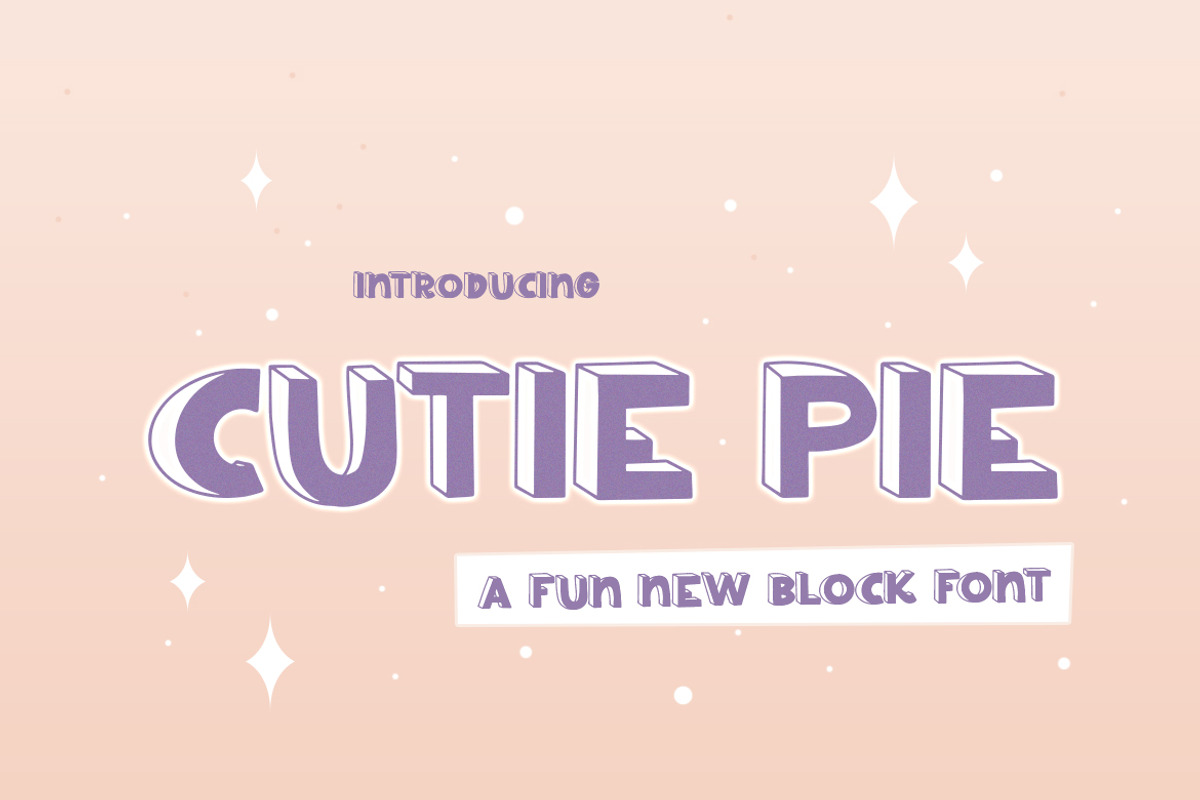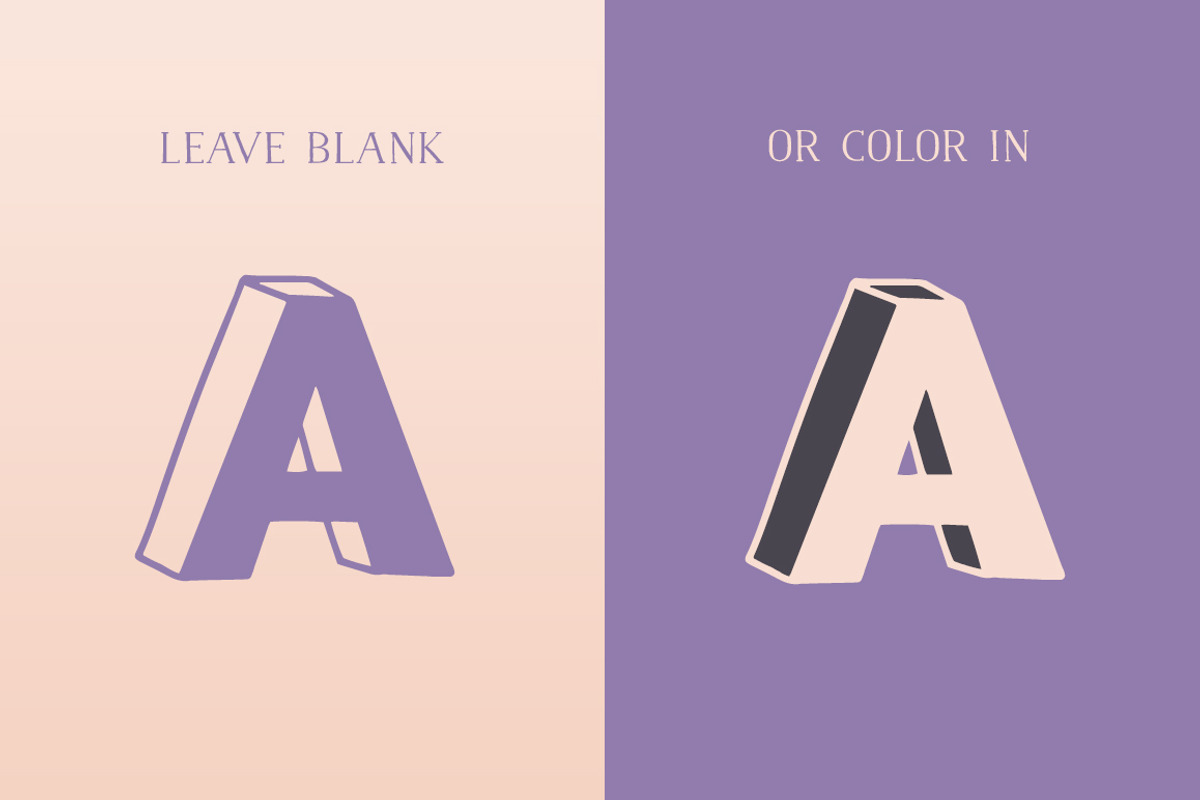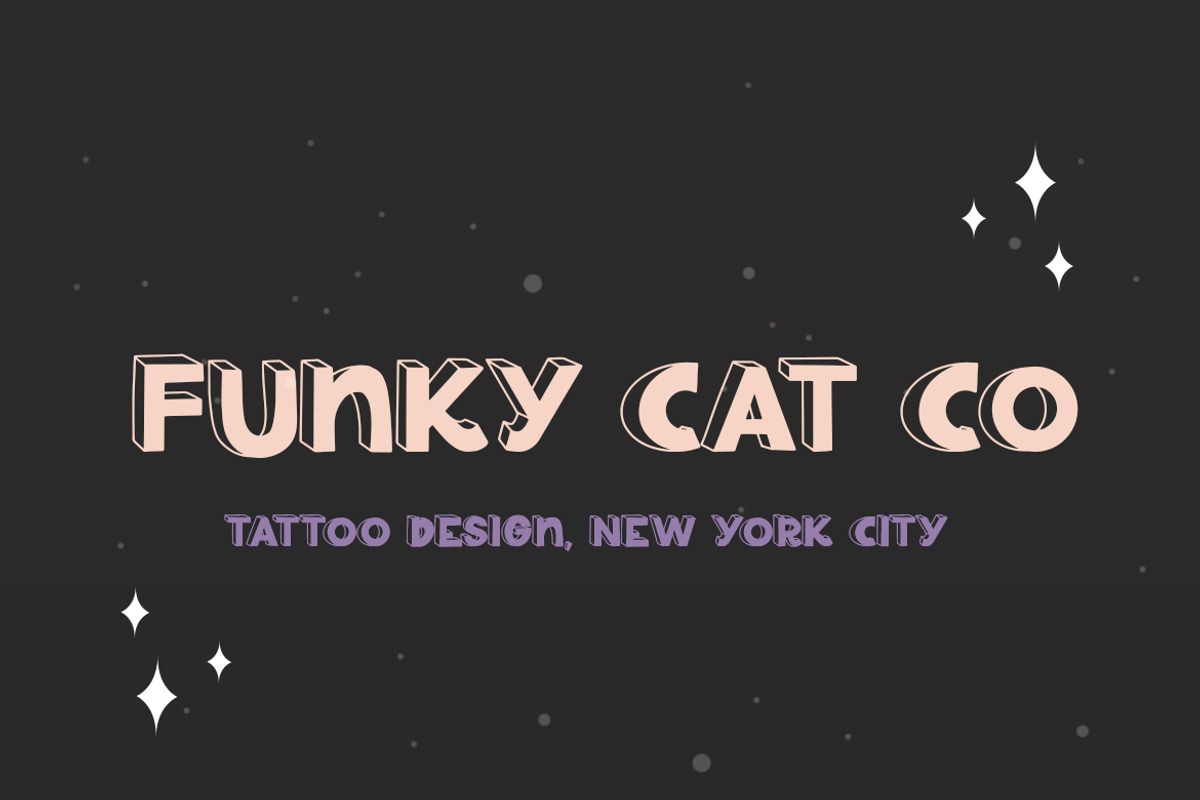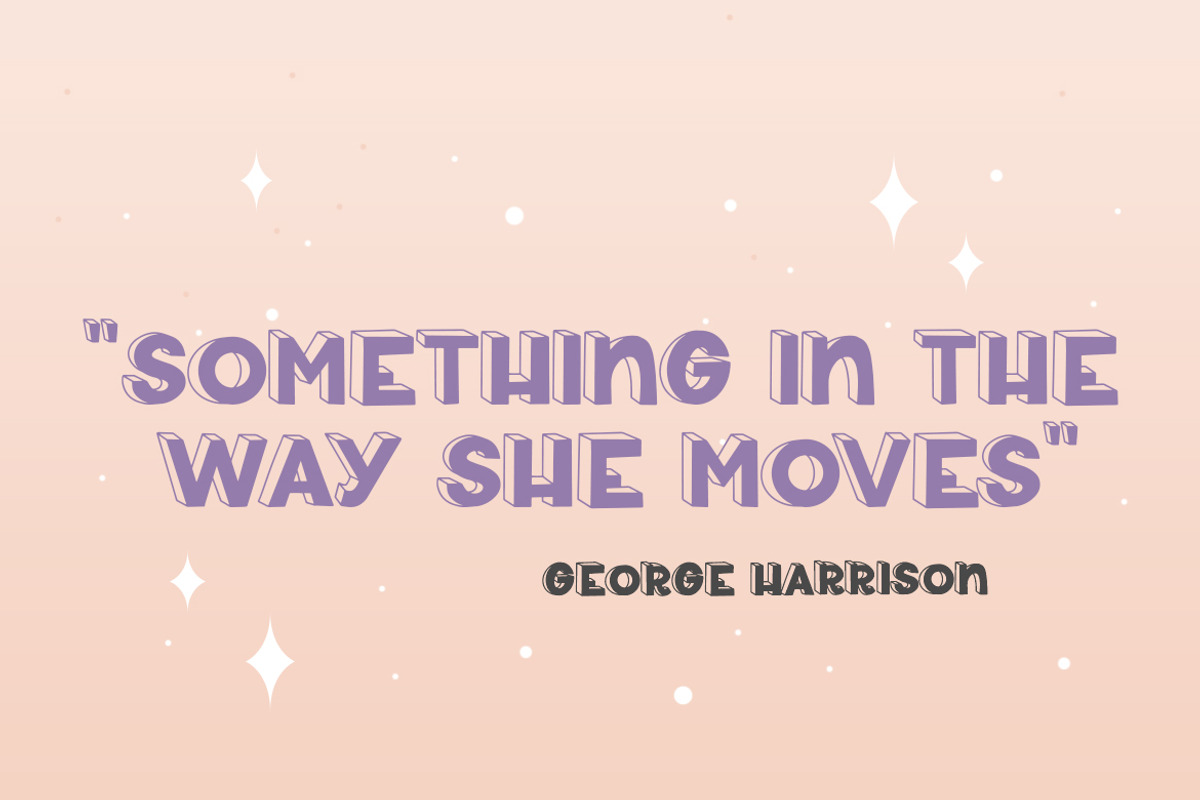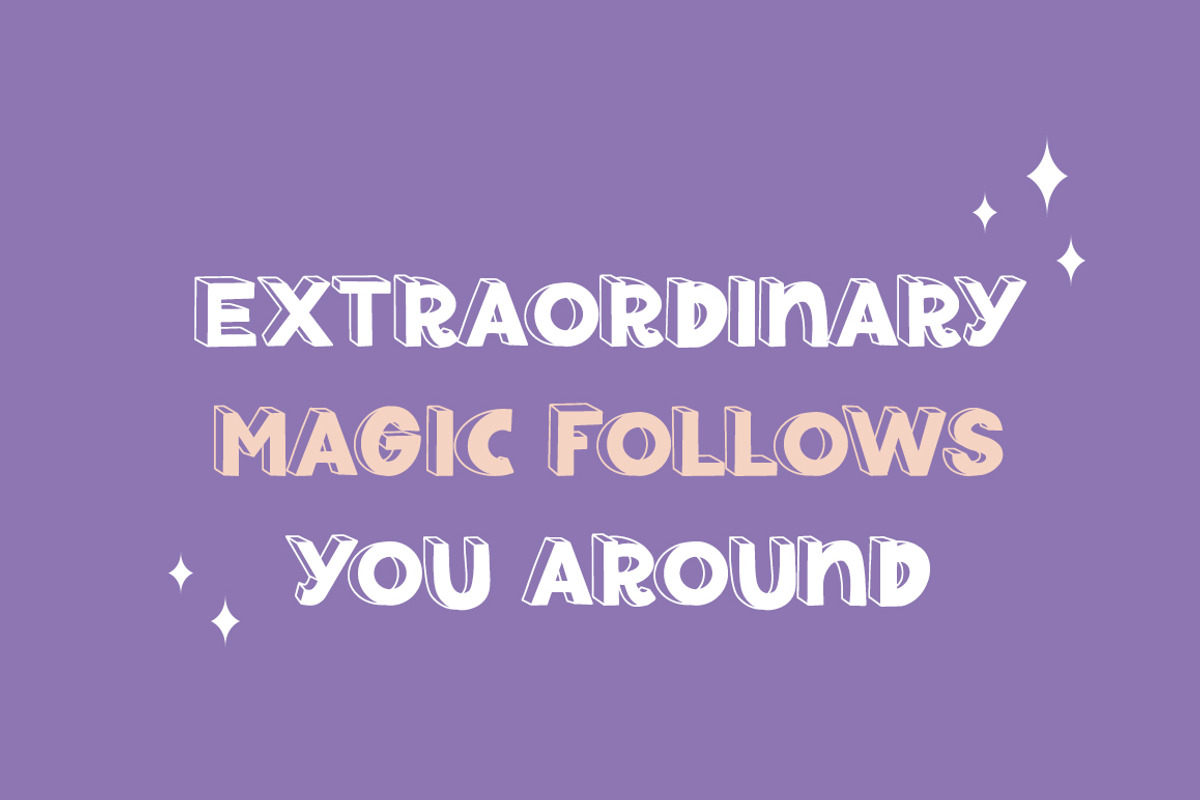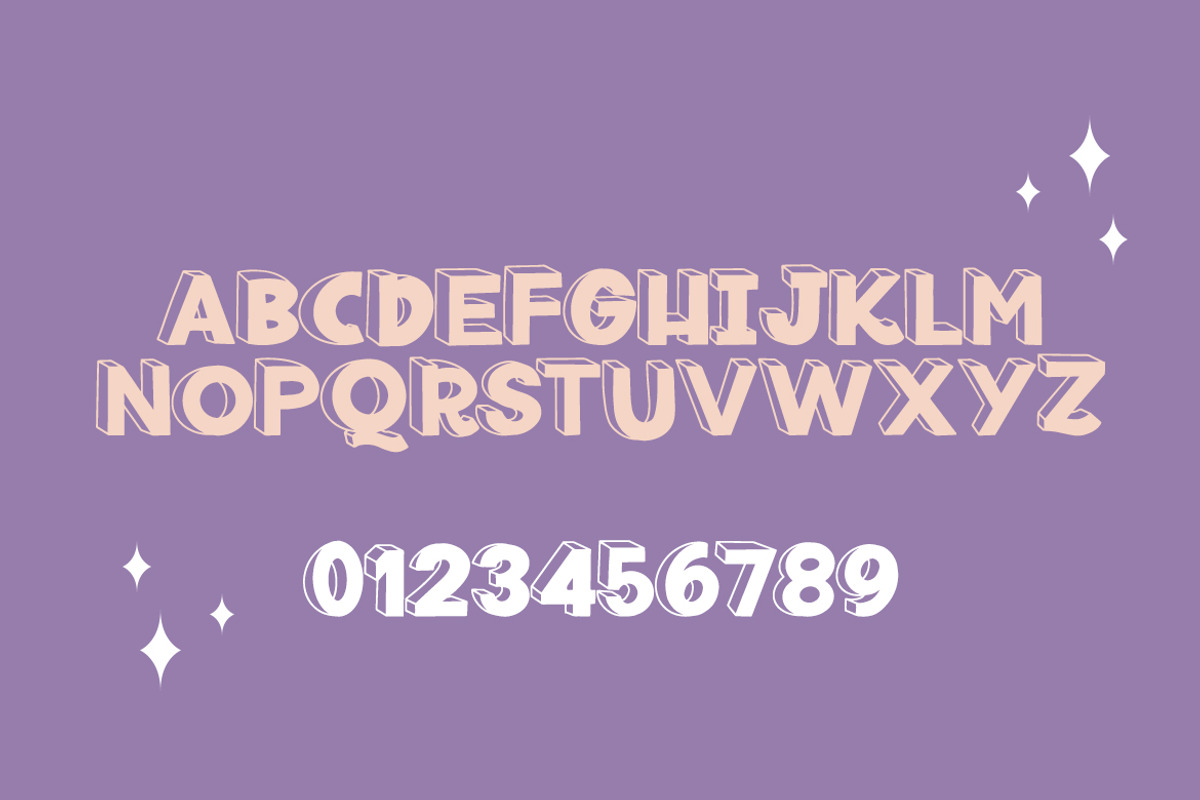
Cutie Pie Font
Why Cutie Pie Font is worth a look
Cutie Pie Font by Salt & Pepper Designs fits naturally into Branding, posters, packaging, typography.